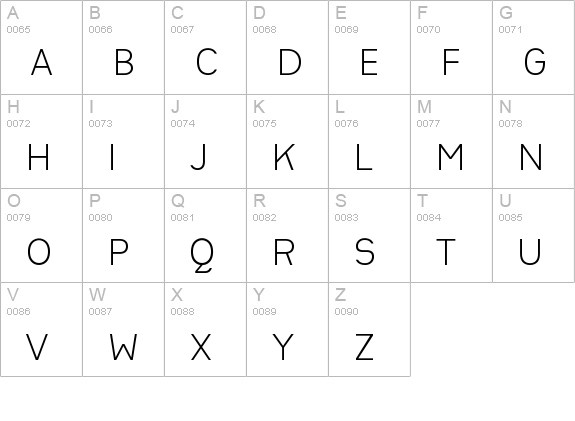
HeimatSans-Light Font Details
HeimatSans-Light is a refined, elegant variant in the HeimatSans typeface family \xE2\x80\x94 well suited to elegant body text, refined sub-headings, and luxury branding.
HeimatSans-Light is a sleek and modern sans-serif font that exudes elegance and sophistication. With its clean lines and minimalist design, this font is perfect for a wide range of design projects, from editorial layouts to branding and packaging. The light weight of the font adds a touch of delicacy and refinement to any text, making it ideal for conveying a sense of sophistication and style. What makes HeimatSans-Light even more appealing is that it is available for free download at FontsMarket.com. This means you can easily access this beautiful font and use it in your projects without any cost. With its versatility and timeless appeal, HeimatSans-Light is sure to become a staple in your font collection. Elevate your designs with this stunning typeface today by downloading it for free at FontsMarket.com.